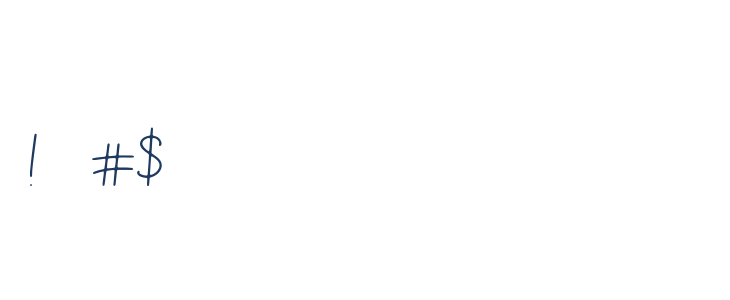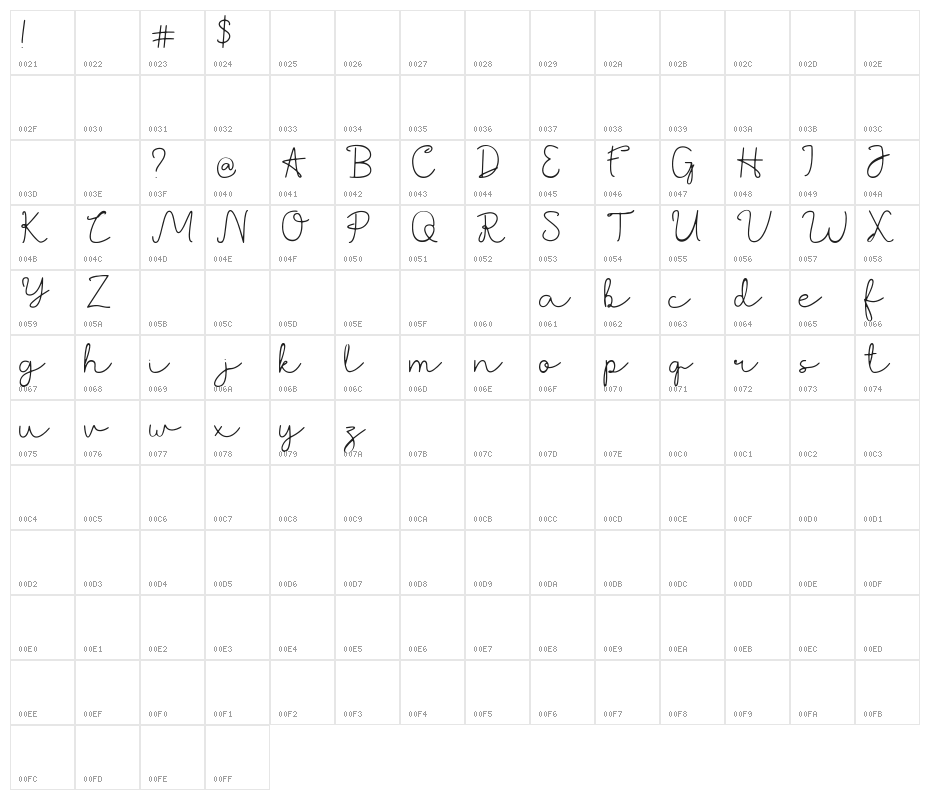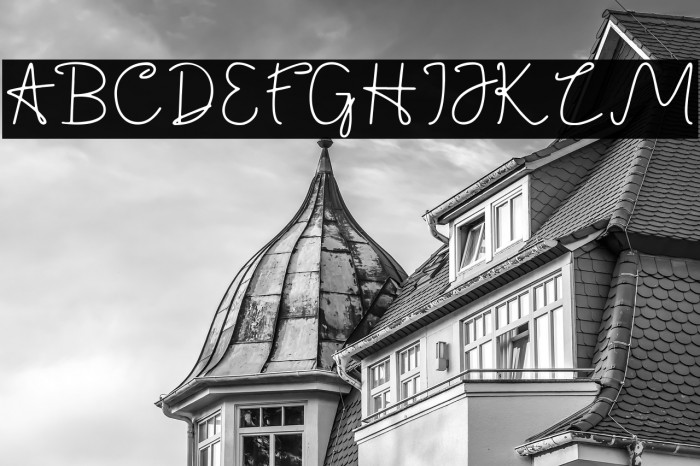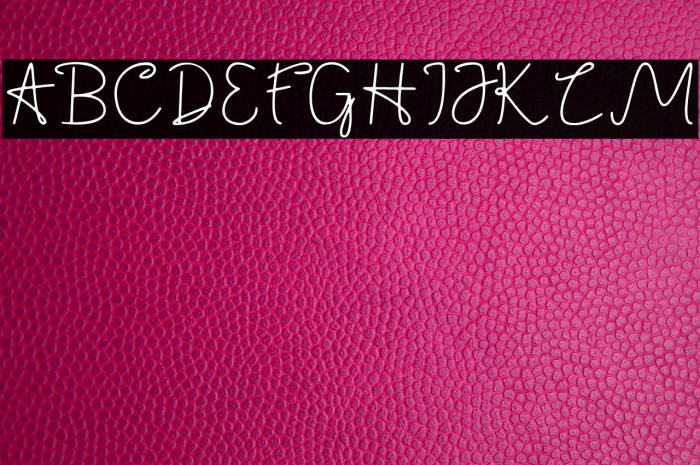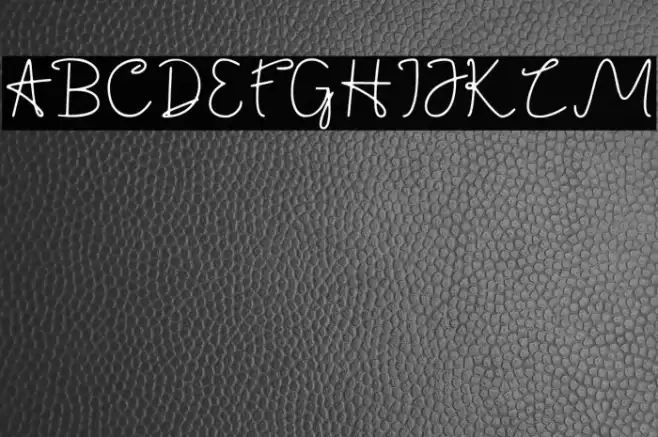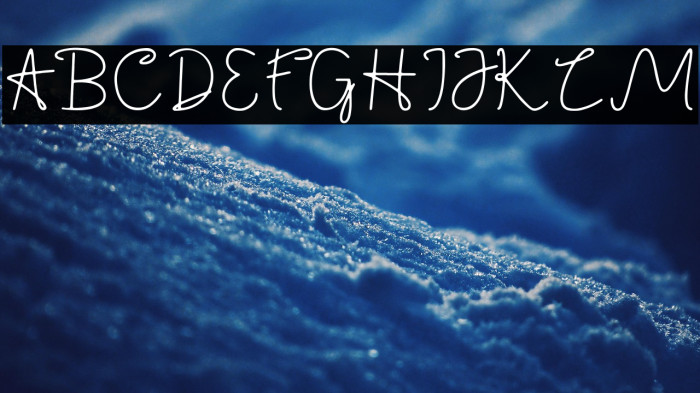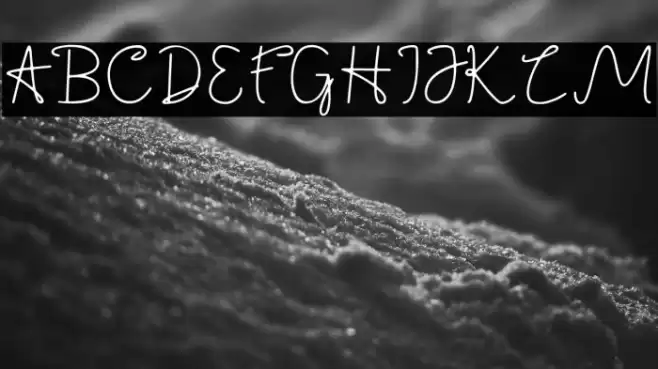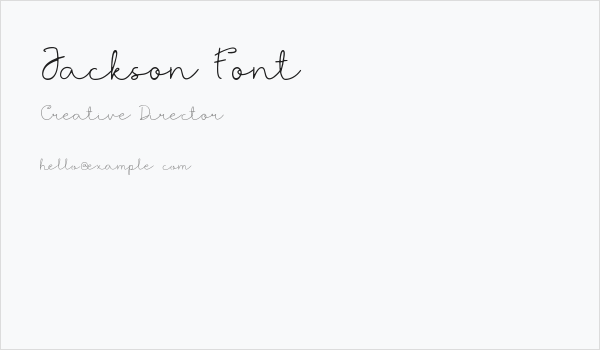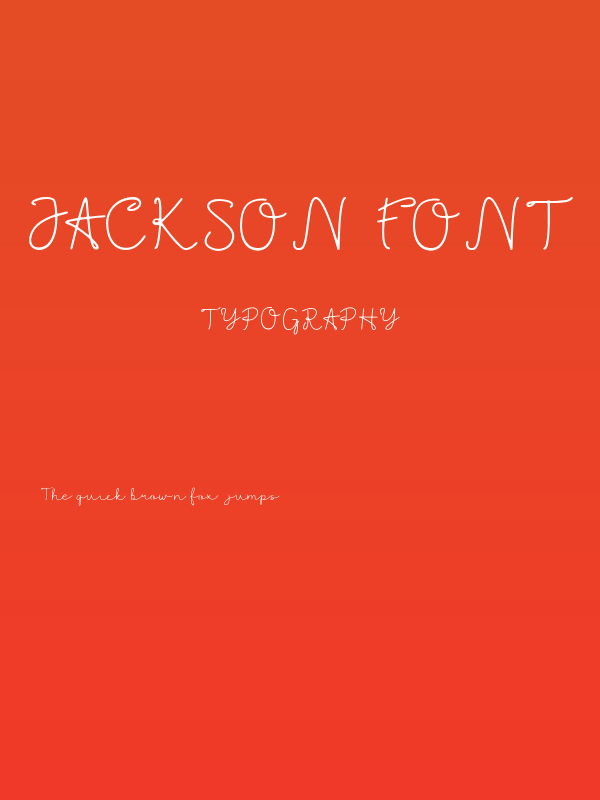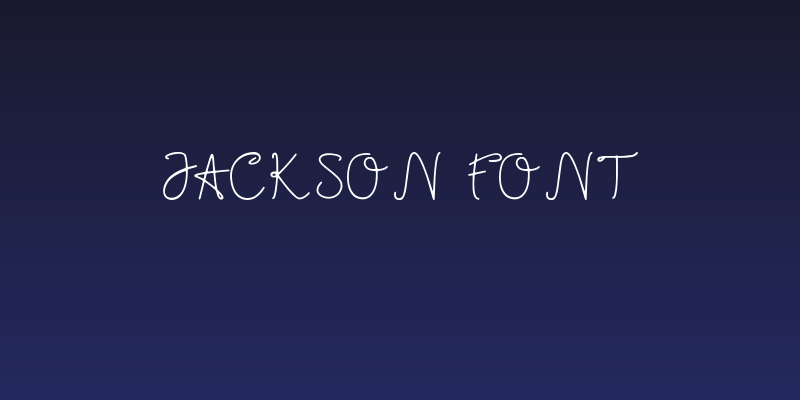
Jackson Font Font
Jackson Font Description
This font features a flowing, cursive style with elegant loops and curves, giving it a handwritten appearance. The uppercase letters are distinct with a slight slant, while the lowercase letters maintain a consistent flow, enhancing readability. The characters are well-spaced, ensuring clarity and balance. The font's whimsical nature is complemented by its smooth, continuous strokes, making it ideal for creative and personal projects. The special characters are designed to match the overall aesthetic, adding versatility to its use.
| Use Case | Logos, Invitations, Personal projects |
| Proposed Projects | Ideal for wedding invitations, greeting cards, personal branding, and creative projects. |